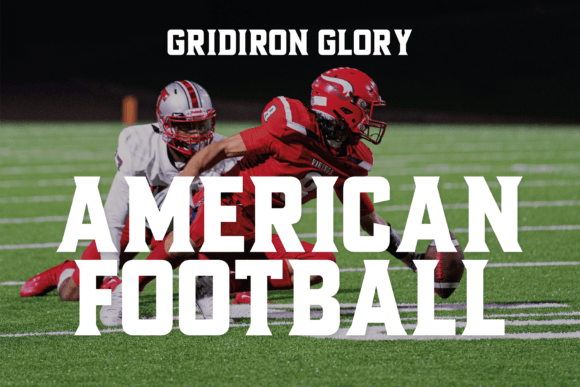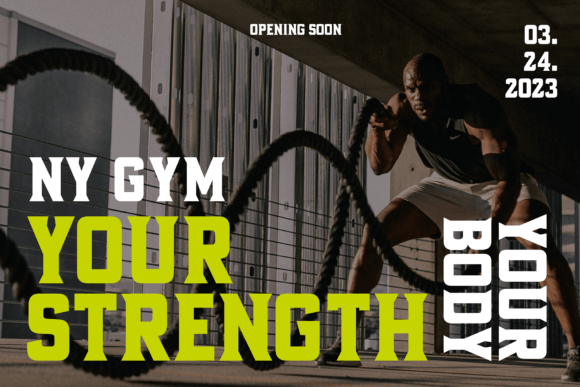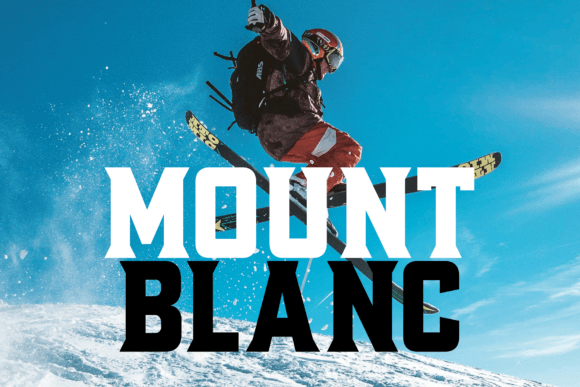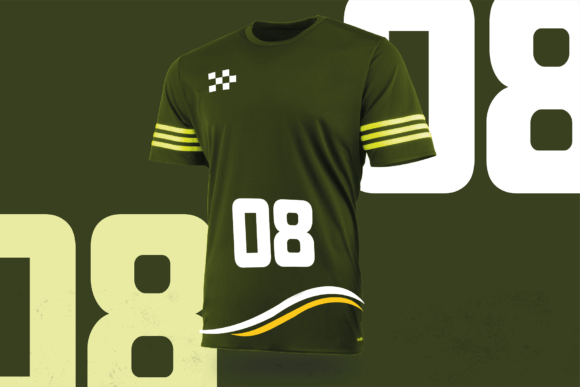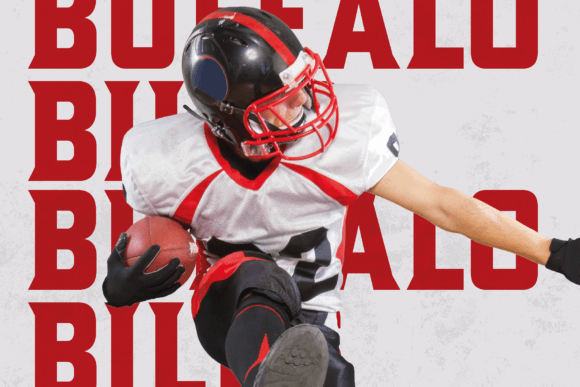
Gridiron Glory Font
Gridiron Glory is a modern and elegant font that stands tall as a tribute to the world of sports. This dynamic display typeface captures the power and energy of athletic competition with its strong, bold letterforms and sharp angles.